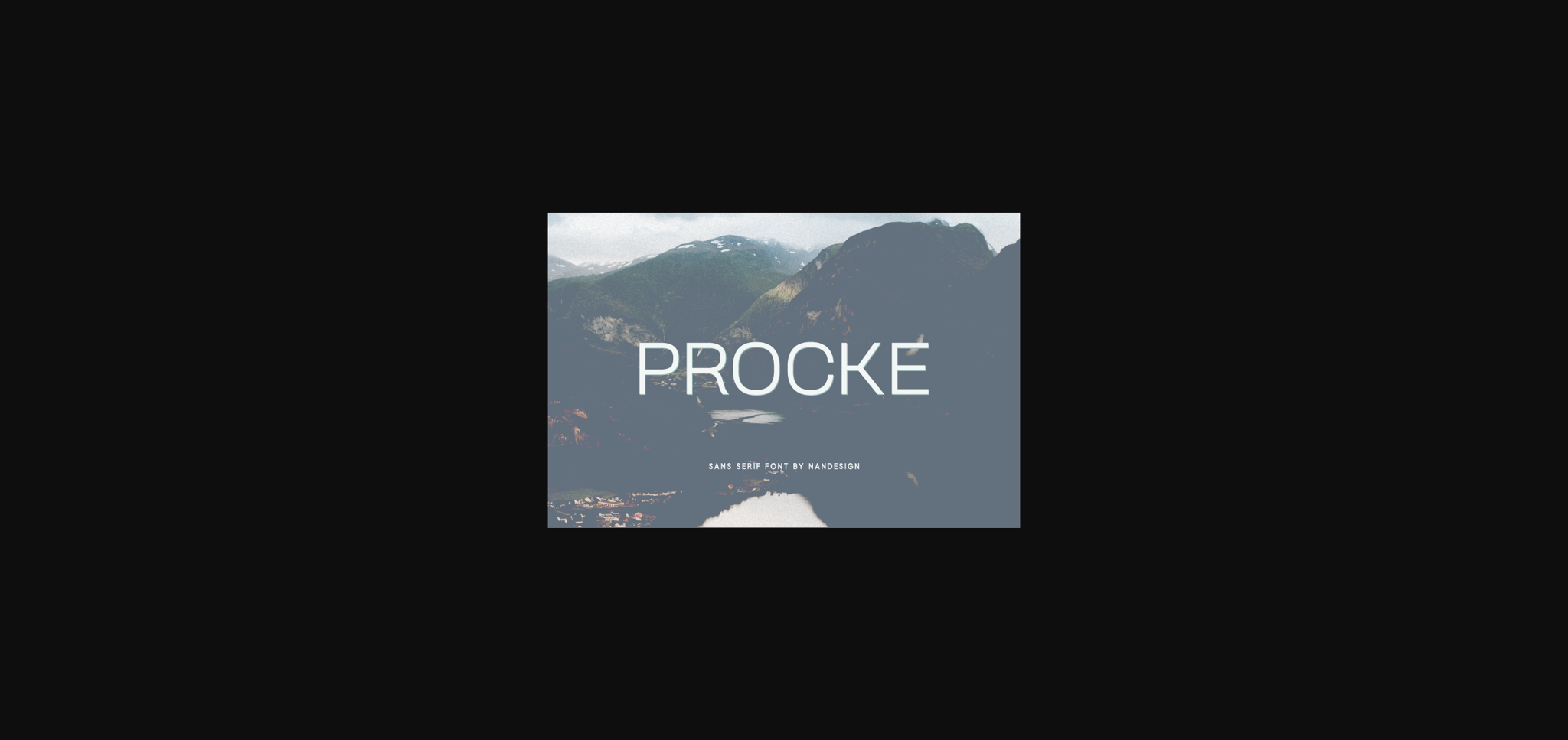
Procke Font
About Procke Font
Procke is a stunning sans serif font. It will complement every project you’re working on! Use it to create beautiful headings, gorgeous invitations, stunning logos, and so much more!!